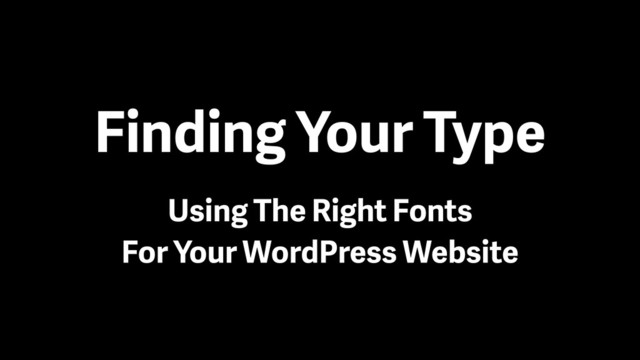
Finding Your Type: Using The Right Fonts For Your WordPress Website
Readability is a very important part to every website and yet it is taken for granted. Choosing the right font can make all the difference in any design. Learn how to select the right type, design your fonts correctly, and add them to your WordPress website.
1. Leading (Line Height) Lorem ipsum dolor sit amet, consectetur adipiscing
2. Choosing the Right Fonts • What are you trying to
convey? • Is it long-form reading or short bursts of text? • Use word association: powerful, playful,
innocent, handmade, industrial, etc. • Is it appropriate?
3. Pairing Fonts • Look for distinction • Look for harmony
• Some fonts have a sans and serif
(Freight Sans Pro & Freight Text Pro) • Look at other websites for good
font pairings • Do you need more than one font?
4. Setting Your Type • Type Size
(16px for mobile, 18-22px
for desktop) • Line-width
(45-75 characters wide) • Line-height
(for reading comfort) • Type color & contrast
(for readability and accessibility)
6. SANS-SERIF Open Sans Proxima Nova Lato Avenir Brandon Grotesque Fira
Sans SERIF Garamond Georgia Freight Text Merriweather Kepler Libre Baskerville
text (leading) p { line-height: 1.4em; } h1 { letter-spacing: 0.08em; } letter-spacing: The spacing between the letters
(kerning, tracking)